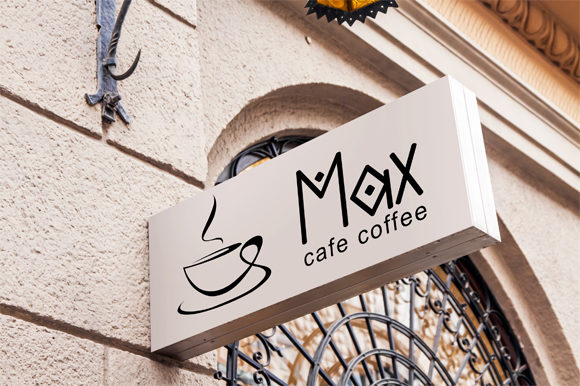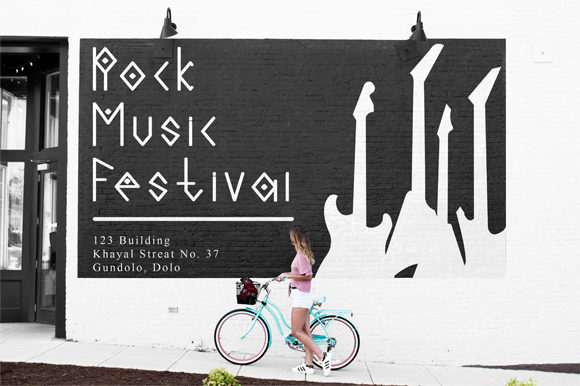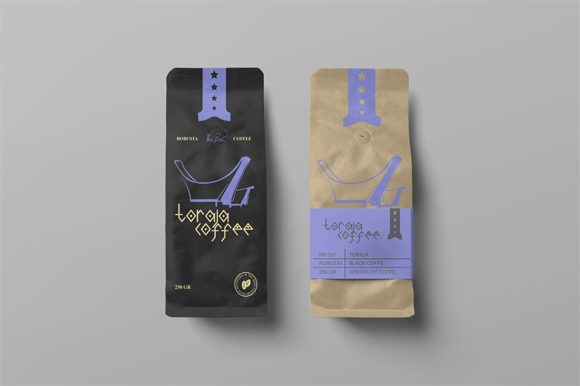
Introduction to Shalltear Font
Have you ever stared at a blank canvas, trying to find the perfect font to bring your creative project to life? I know I have. There’s something magical about the moment when all the elements come together, and the design just clicks. For designers, finding the right font can make all the difference in elevating a concept from good to great.
Enter Shalltear Font, a modern display font that’s about to become your new best friend. With its unique, iconic patterns, Shalltear Font is a high-quality design resource that’s sure to add some visual interest to your next creative project. Whether you’re working on a free download or a commercial project, Shalltear Font is a versatile choice that’s sure to impress.
One of the things that sets Shalltear Font apart is its transparent background, making it easy to layer and customize to fit your design needs. With its modern aesthetic and unique patterns, Shalltear Font is a valuable addition to any designer’s toolkit.
Shalltear Font Key Features
- Unique, hand-drawn design with a transparent background, allowing for easy customization.
- Includes a comprehensive character set, covering Latin, Cyrillic, and Greek alphabets, making it a versatile design resource.
- Features a bold, elegant style with intricate details, perfect for adding a touch of sophistication to any design project.
Honest Review: Shalltear Font
As a designer, I’m always on the lookout for high-quality design resources that can elevate my creative projects. The Shalltear Font caught my attention, and I decided to give it a try.
First impressions are great – the font is modern, sleek, and perfect for any design project. I particularly love the transparent background option, which makes it easy to use in various design scenarios.
- ✨ High-quality design: The font is crisp, clear, and well-designed.
- ✨ Customizable: The font is versatile and can be used in various design contexts.
- ⚠️ Limited language support: The font only supports a few languages, which may be a concern for designers working on multilingual projects.
- ⚠️ Not ideal for small text: The font can be difficult to read when used in small text sizes.
Overall, I’m impressed with the Shalltear Font. While it may have some limitations, its high quality, free download, and transparent background make it a valuable design resource. I’d definitely recommend it for designers working on creative projects.
The Shalltear Font is a high-quality, free download design resource ideal for creative projects. Its unique style and transparent background make it a versatile choice for various applications.
The Shalltear Font is ideal for creative projects, such as:
Infographics
Brochures
Posters
Business cards